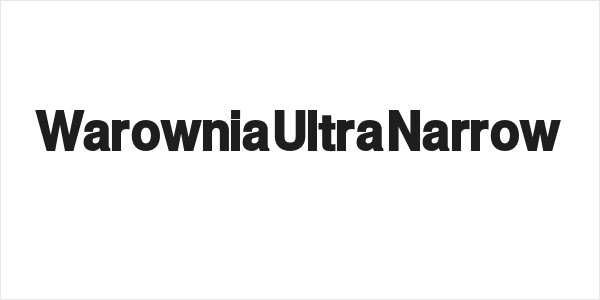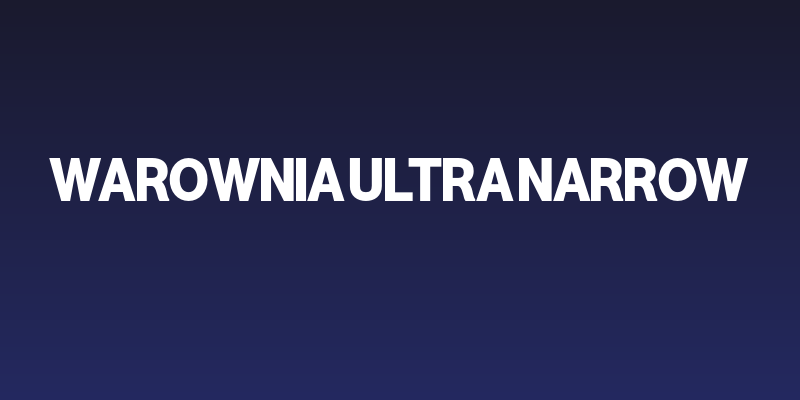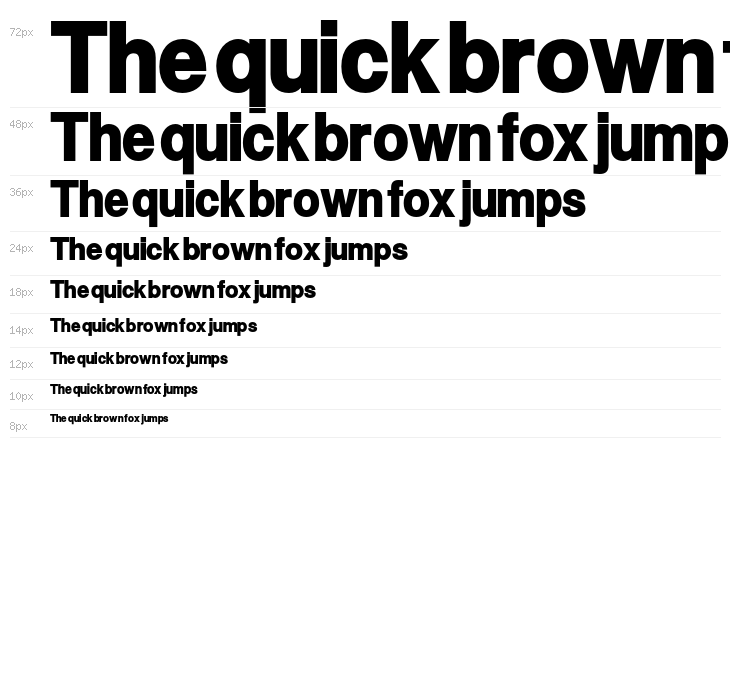
Warownia Ultra Narrow Font
Warownia Ultra Narrow Description
This font exhibits a bold and impactful style with a strong presence. The characters are ultra-narrow, giving it a compact and dense appearance. The uppercase letters are uniform in height, while the lowercase letters maintain a consistent baseline, enhancing readability. The numerals are clear and distinct, matching the boldness of the alphabet. Special characters are well-defined, ensuring versatility in various applications. The overall design is modern and assertive, making it suitable for attention-grabbing headlines and statements.